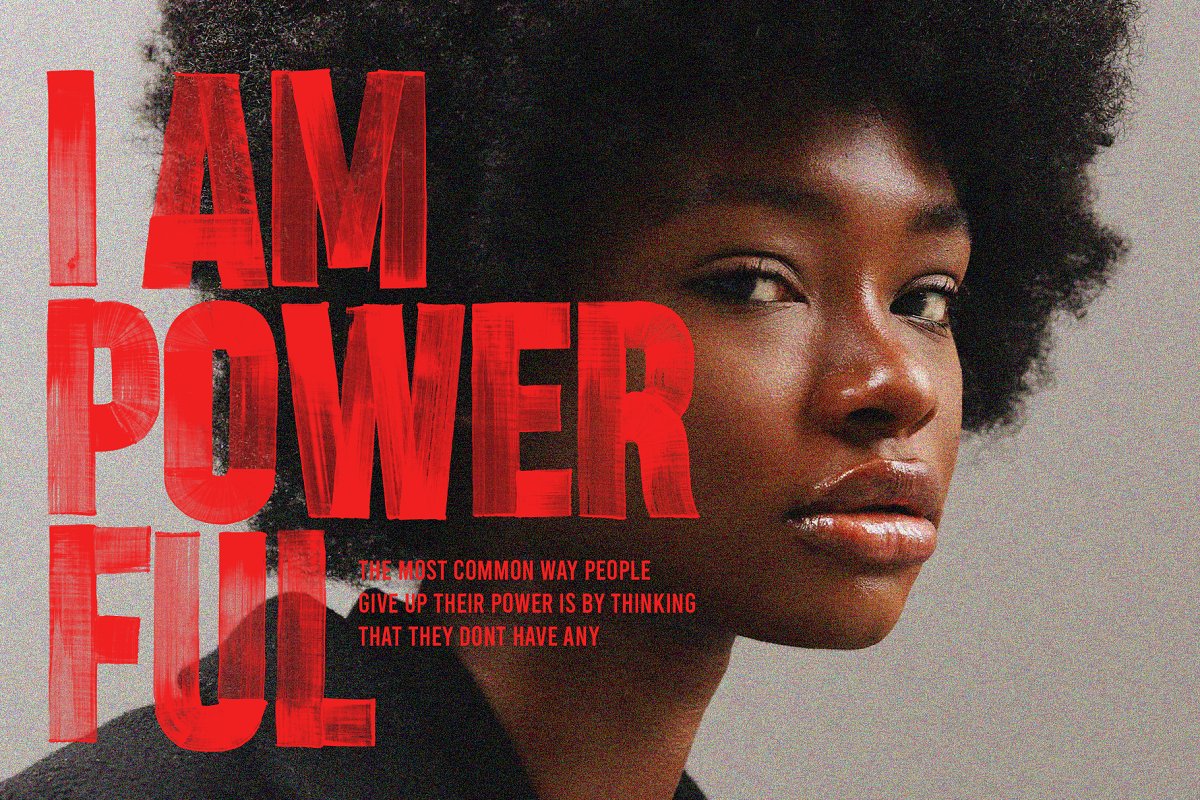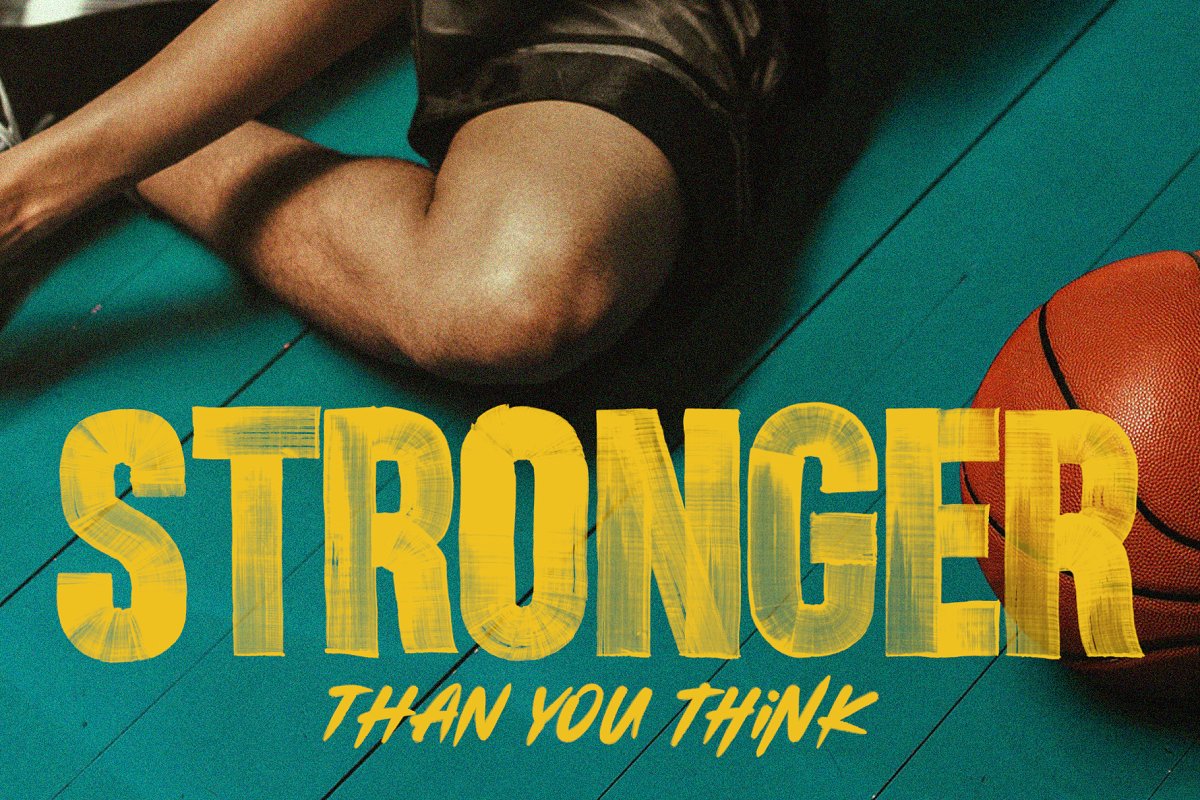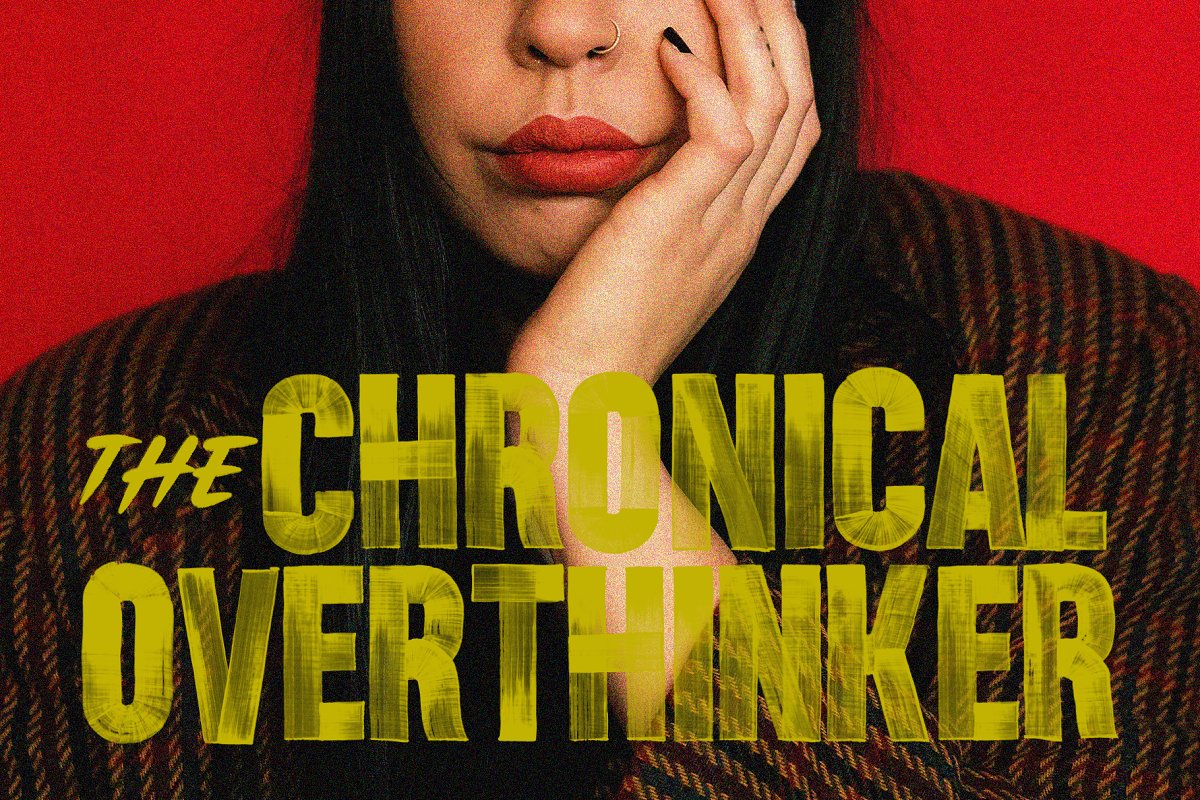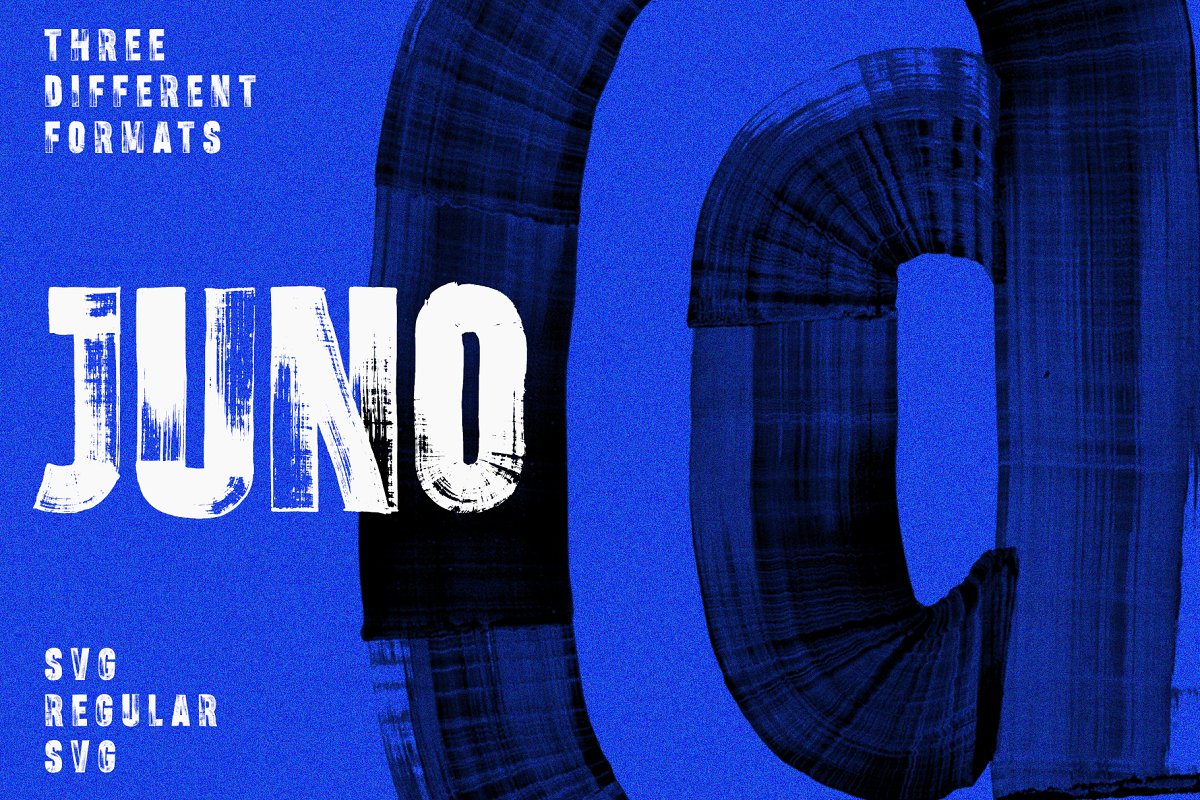
About the JUNO SVG & Regular
Introducing JUNO – A bold condensed Hand Painted Headliner Font from ReveryWorks, Each character was individually hand-painted to give it unique texture and achieve the drag marks, Its here to help you make STRONG and POWERFUL statements in your projects!What is included:JUNO SVG Font- OTFJUNO Regular Font – OTFJUNO PNG – Individual characters in high definition